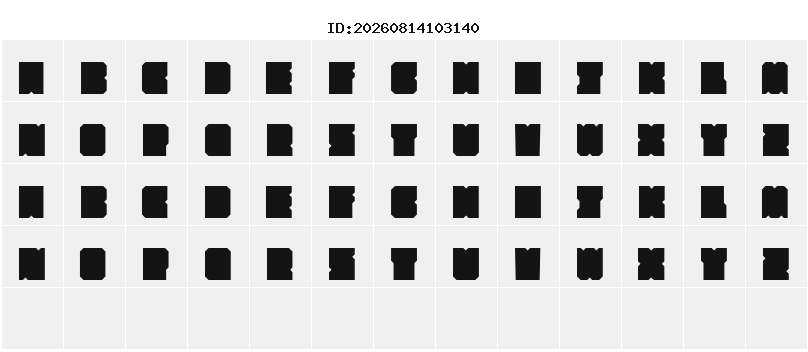
SubSquare Preview
• Font Name: SubSquare
• Font Style: SubSquare
• Full Font Name: SubSquare SubSquare
• PostScript Name: SubSquare-SubSquare
About SubSquare.ttf
SubSquare.ttf is a modern, elegant sans-serif font designed for ultimate readability and visual harmony. Perfect for branding, headlines, web design, and print materials.